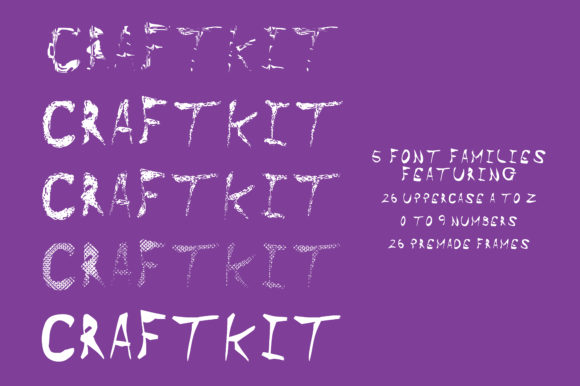
Step into a world of creativity with Craft Kit Font, the ultimate dingbats font family tailor-made for magazine design. Unleash your inner artist and let your imagination soar as you delve into four distinctive styles, each brimming with endless possibilities.
Picture this: you're working on a magazine layout, pouring your heart and soul into crafting a visually stunning masterpiece. With Craft Kit Font as your trusty companion, you'll have a treasure trove of captivating frames at your fingertips, ready to mix and match until you find the perfect combination that ignites your vision.
But that's just the beginning. The beauty of Craft Kit Font lies in its versatility, allowing you to effortlessly create eye-catching messages and designs that seamlessly blend with any art or craft project you can dream up. Whether you're designing greeting cards, invitations, posters, or even T-shirts, this font family is your secret weapon to turn your creative dreams into tangible realities.
Imagine the awe and admiration in your readers' eyes as they flip through your magazine, captivated by the intricate frames that adorn your pages. Craft Kit Font transforms ordinary text into captivating works of art, leaving a lasting impression that lingers long after the last page is turned.
But don't just take our word for it. Dive into the world of Craft Kit Font and experience firsthand the creative magic it can unleash. Unleash your inner artist, let your imagination run wild, and create something truly extraordinary. The possibilities are limitless, and the journey begins with just a click.